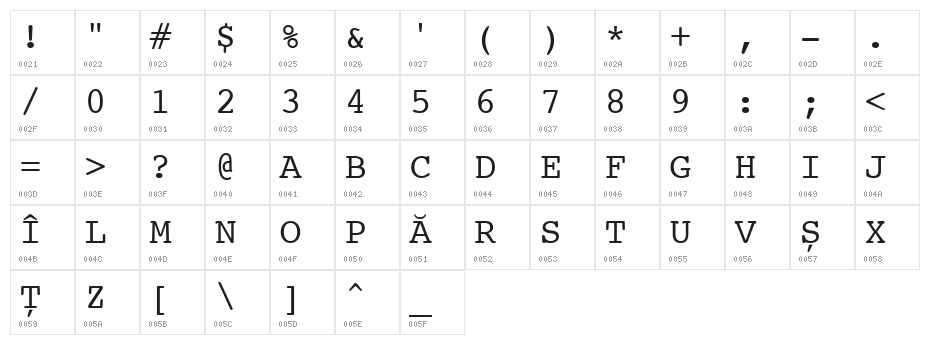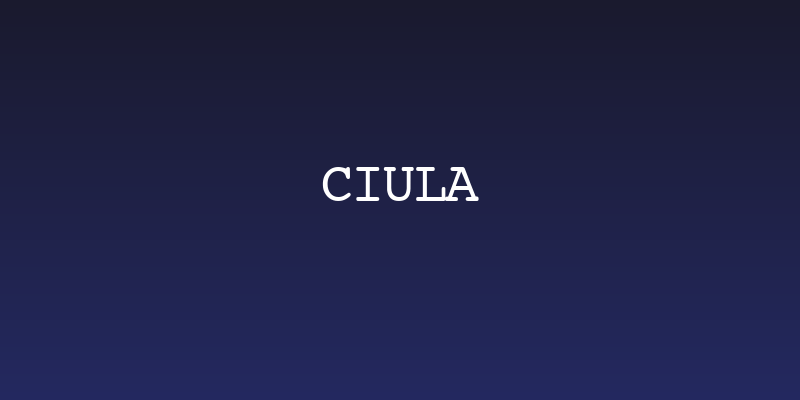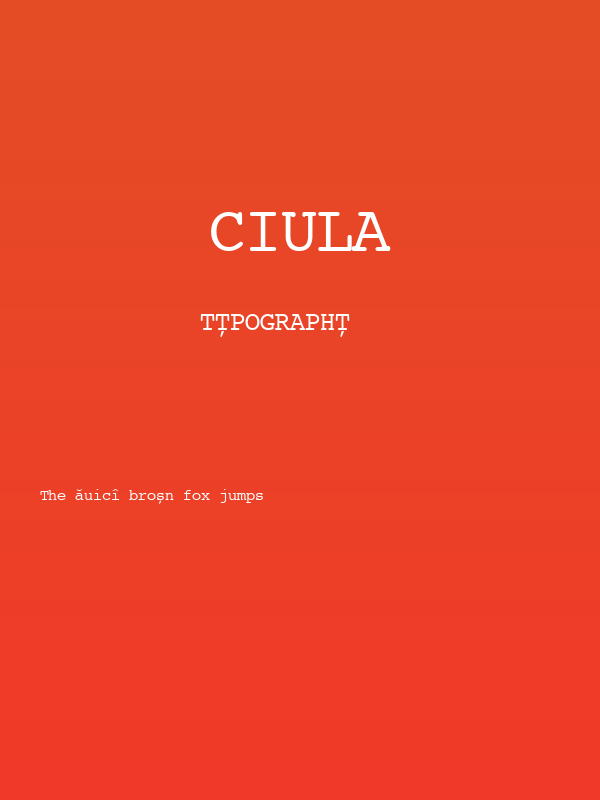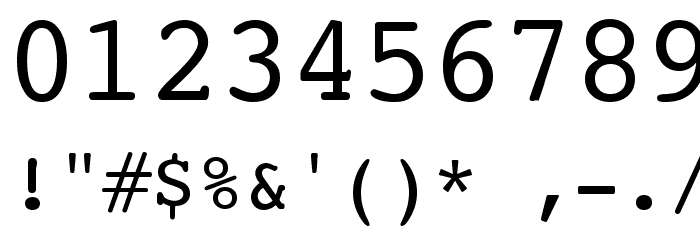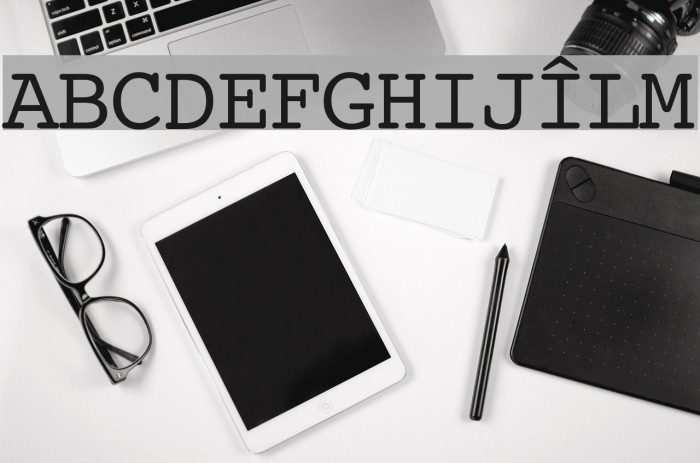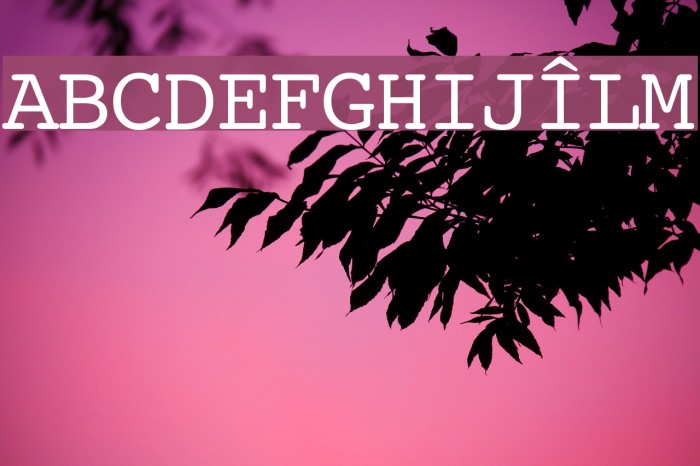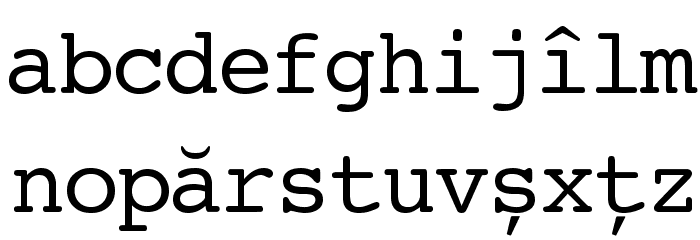
Ciula Font
Ciula Description
This font features a classic serif style with distinct, sharp serifs that give it a traditional yet modern appearance. The uppercase letters are bold and well-defined, while the lowercase letters maintain a consistent style with slightly rounded edges. The numerals are clear and legible, making them suitable for various applications. Special characters are included, providing versatility for different uses. The font has a balanced weight, offering a harmonious look across all characters. Its design is both functional and aesthetically pleasing, making it ideal for a range of design projects.
| Overall Style | Classic |
| Use Case | Headlines, Body text, Logos |
| Proposed Projects | Perfect for editorial design, book covers, formal invitations, and branding projects. |